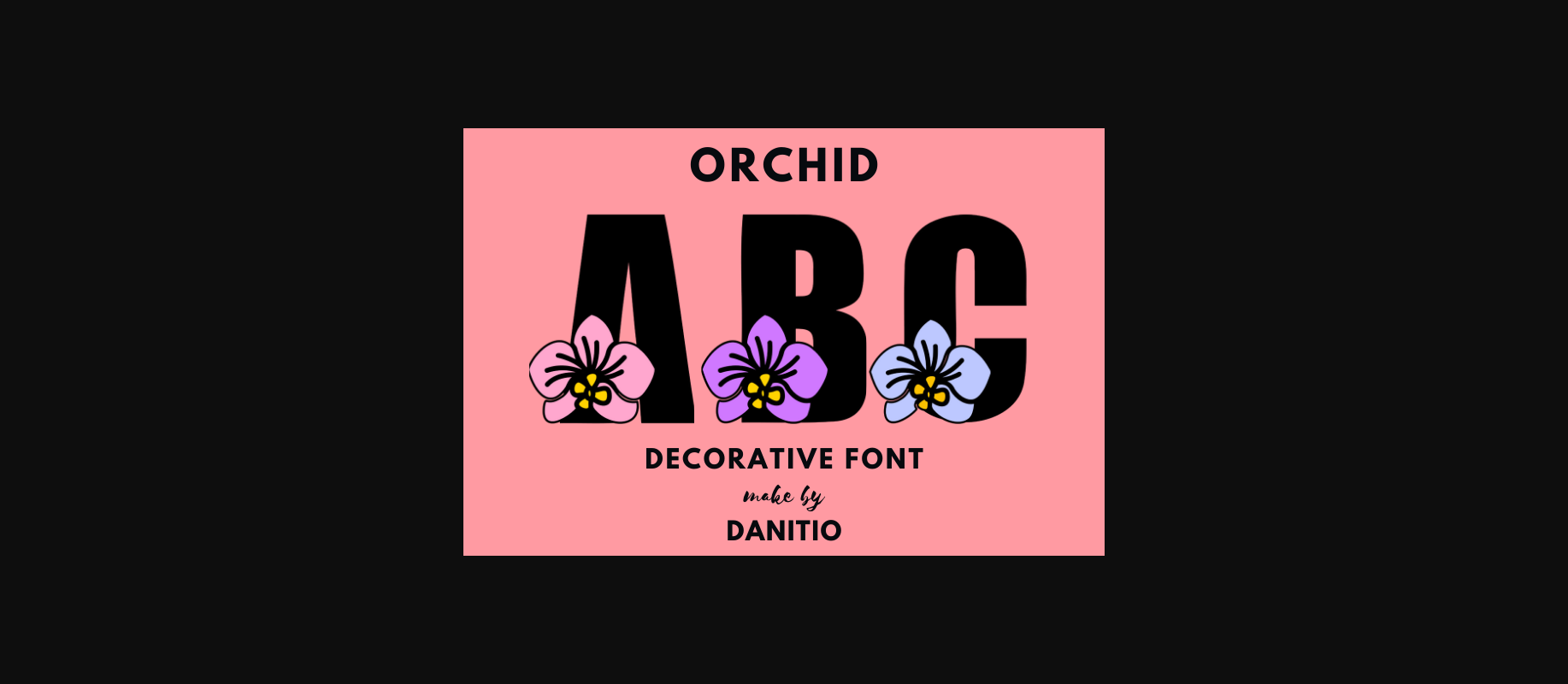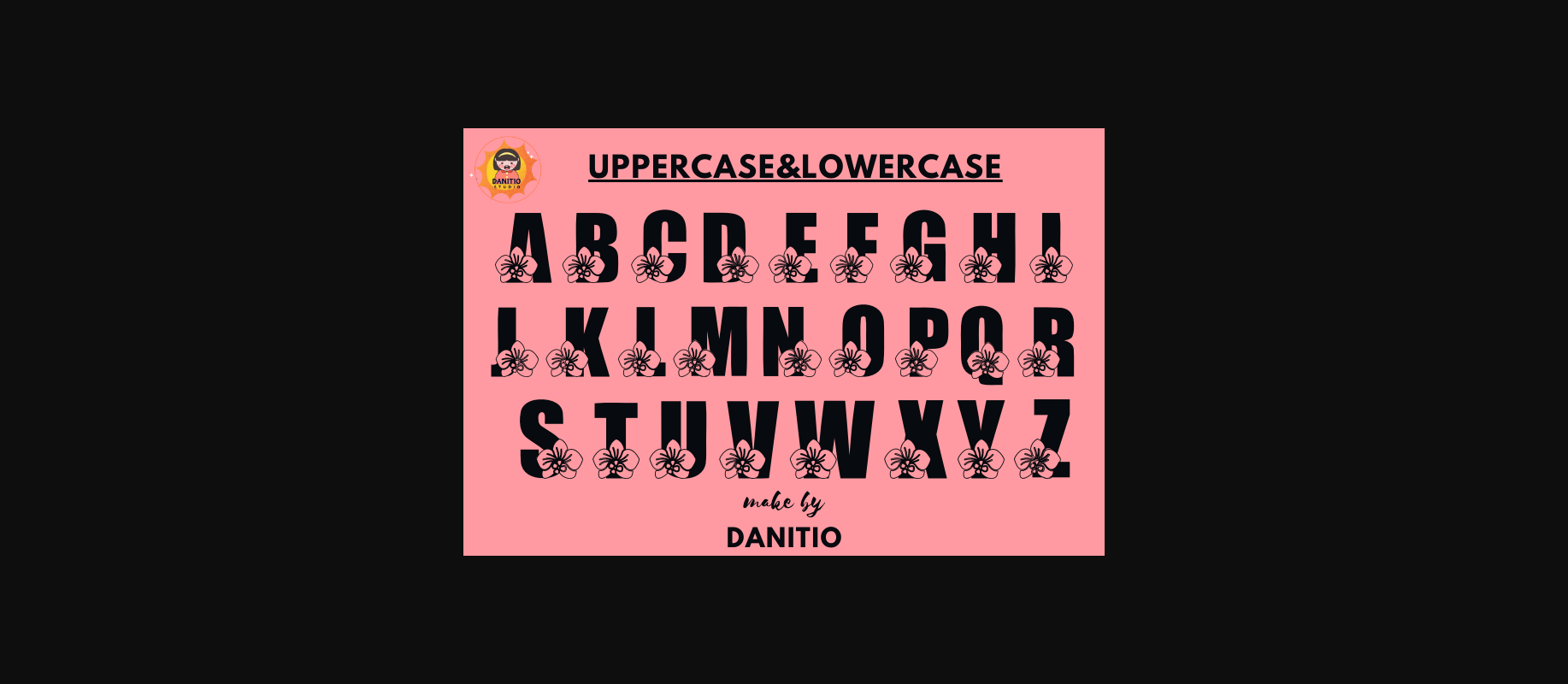
About Orchid Font
Orchid is a fun and beautiful decorative font. The letters are decorated with many flowers, making them perfect for your favorite projects like posters, flyers, and social media posts.